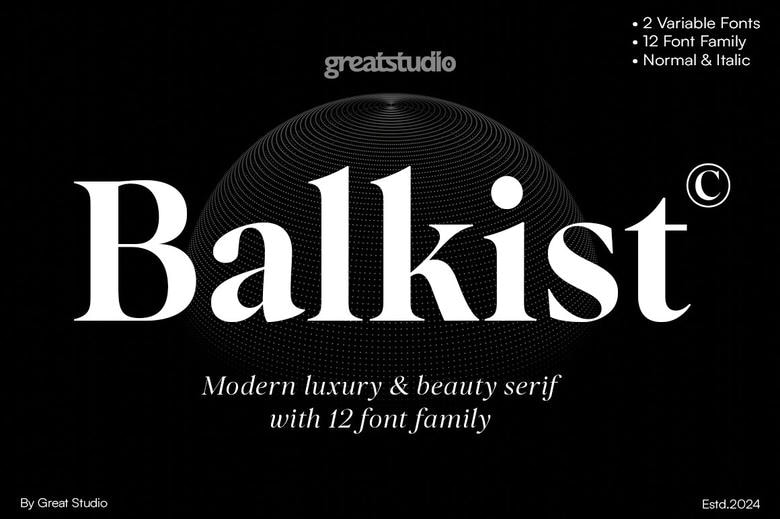
Balkist Font Family
Balkist is a transitional and contemporary high contrast typeface that flawless and elegant. The font broadens its application through ranges of weight from Light to Extra Bold. The natural curves: The charming italics aspect is greatly reflected through the way the fonts are positioned and styled; greatly weighted In the thinner weights, more changes have been made to the contrast and optical correction for warmth and soft feeling.
The entire character set supports over 200 Latin based languages . It means Balkist is ideal for many needs and will suit almost all kinds of uses for instance; editorial design, headlines, branding projects, Logo design, packaging, magazine headings, advertising, short or long text etc. It also has two Variable Regular and Italic versions, so that designers can process and experiment, and find countless design beauty and many more visual nervous abscesses.
Balkist Serif Font Family